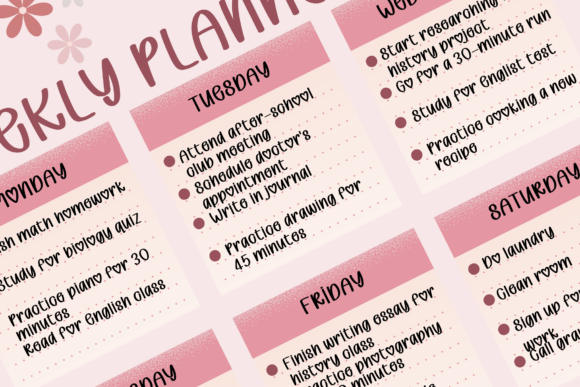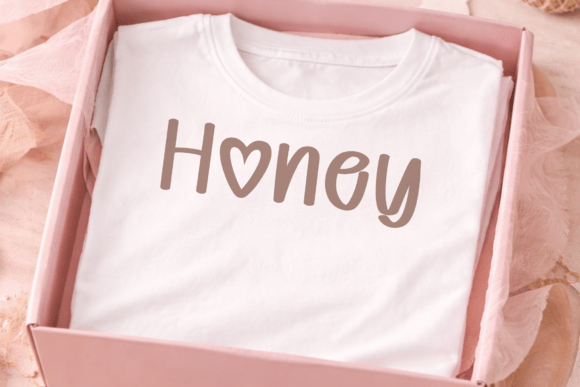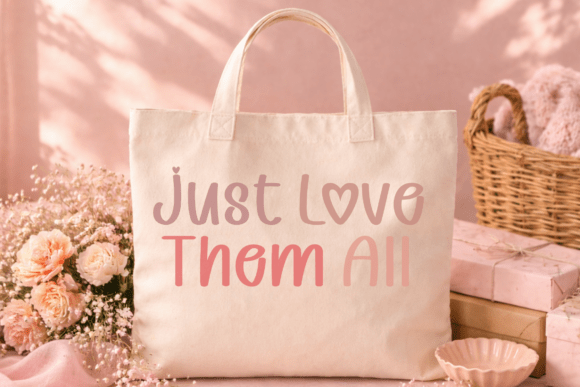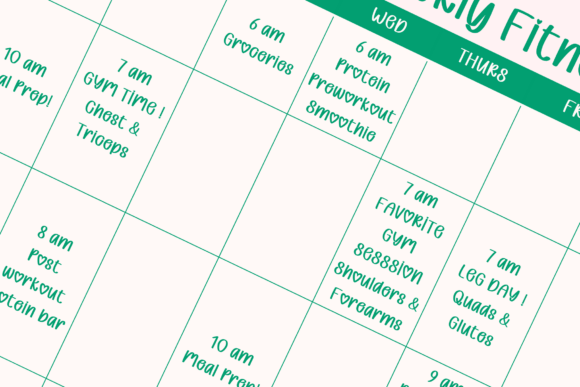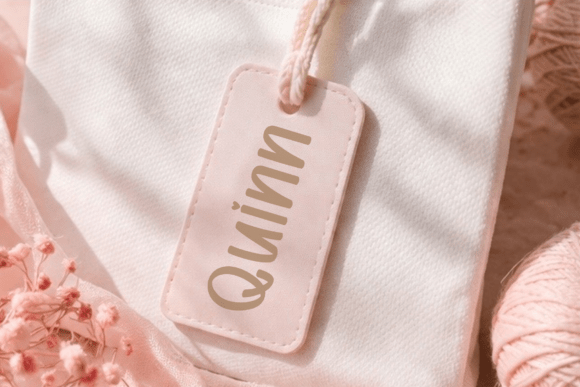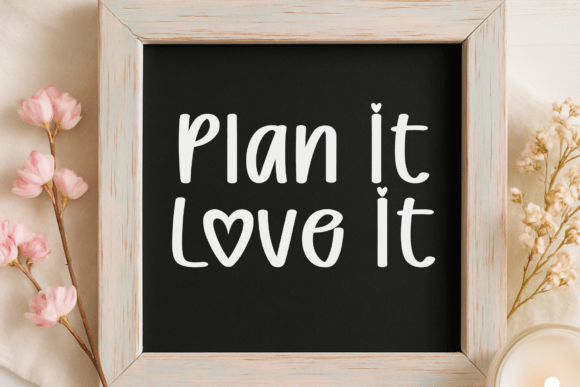
Introduction to Rosy Love Font
Do you remember the moment when a single font choice transformed your entire design project? For many creatives, it’s a moment of pure excitement and joy. As designers, we’re constantly on the lookout for the perfect font to bring our ideas to life, and when we find it, it’s like discovering a hidden treasure. One such treasure is the Rosy Love Font – a bold and playful handwritten font that’s sure to capture the hearts of anyone who lays eyes on it.
With its charming heart-shaped details and smooth curves, the Rosy Love Font is the perfect addition to any design resource library. Its high-quality design and clean structure make it an excellent choice for a wide range of creative projects, from Valentine-themed products to cute merchandise. Plus, with a free download option, you can get your hands on this lovely font without breaking the bank. And the best part? Its transparent background makes it easy to use with any design software or tool, including Cricut.
Key Features of Rosy Love Font
- High-quality design resource ideal for creative projects and personal use
- Features a beautiful, hand-drawn style with a transparent background for versatile use
- Comes in 4 font sizes (Regular, Bold, Italic, and Bold Italic) for added flexibility
- Designed with a high-resolution (300 DPI) for crisp and clear readability
- Perfect for use in various design projects, from wedding invitations to greeting cards, and more
Honest Review: Rosy Love Font
I recently stumbled upon the Rosy Love Font, and I must say, it’s a delightful addition to any design project. This high-quality font is perfect for those who want to add a touch of romance and whimsy to their creative work.
One of the things that works well with the Rosy Love Font is its beautiful, hand-drawn design. The intricate details and subtle flourishes make it a standout choice for projects where a personal touch is needed. ✨
Here are some of the key features of the Rosy Love Font:
- High-quality, hand-drawn design
- Perfect for romantic and whimsical projects
However, there are some limitations to keep in mind. ⚠️ The font is only available in a few weights, which may limit its versatility in certain projects. Additionally, the font may not be suitable for use in large blocks of text, as it can become overwhelming.
Overall, I’m impressed with the Rosy Love Font. It’s a lovely addition to any design resource library, and I would recommend it to designers looking for a unique and romantic font.
Tips for Getting the Most Out of Rosy Love Font
Use a transparent background to make the font stand out. Experiment with different font sizes and colors to create a unique look. Combine the Rosy Love Font with other design elements to add depth and interest.
Common Use Cases for Rosy Love Font
The Rosy Love Font is perfect for wedding invitations, Valentine’s Day cards, and romantic social media posts. It’s also great for creating a feminine and elegant look in branding and marketing materials.